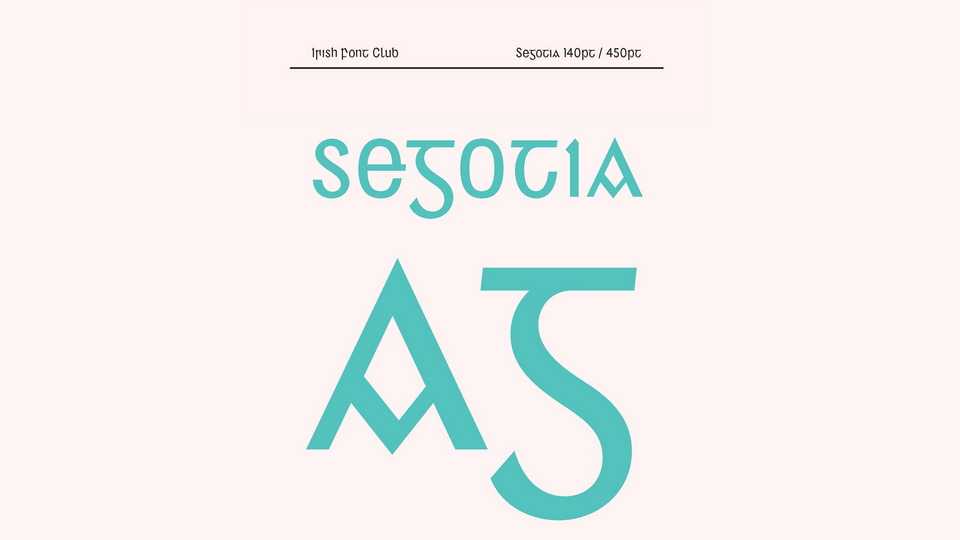
Download Segotia font, a Gaelic typeface with new and old Irish characters. Inspired by the Intertype Bold Irish Type font from 1913, this is a regular upright Irish script with a slightly condensed width.